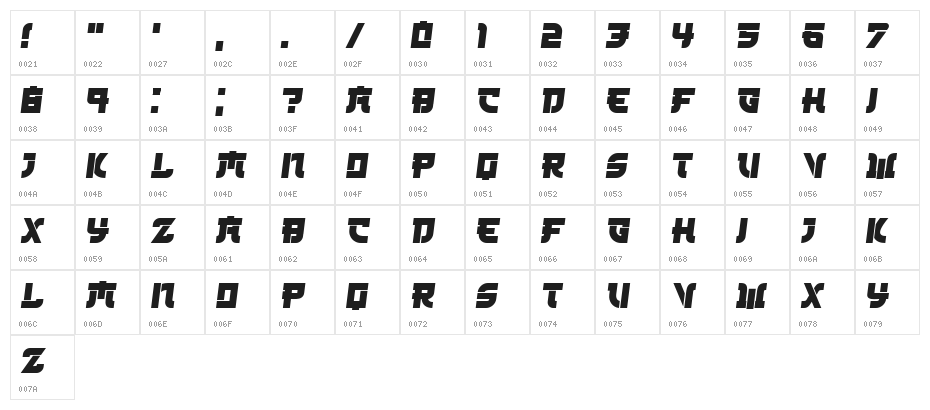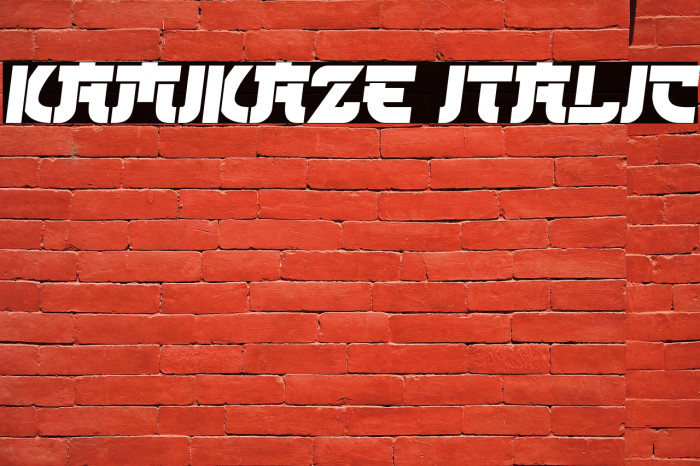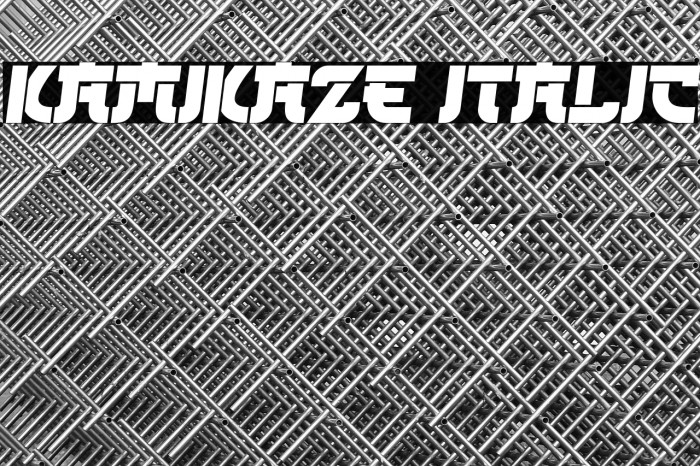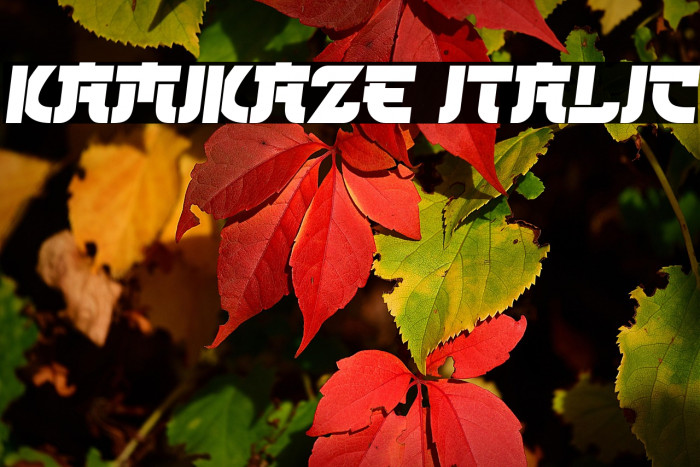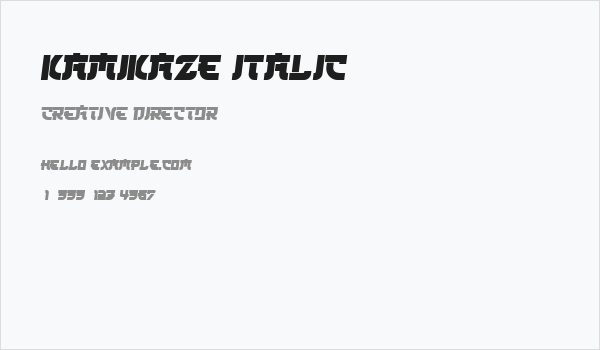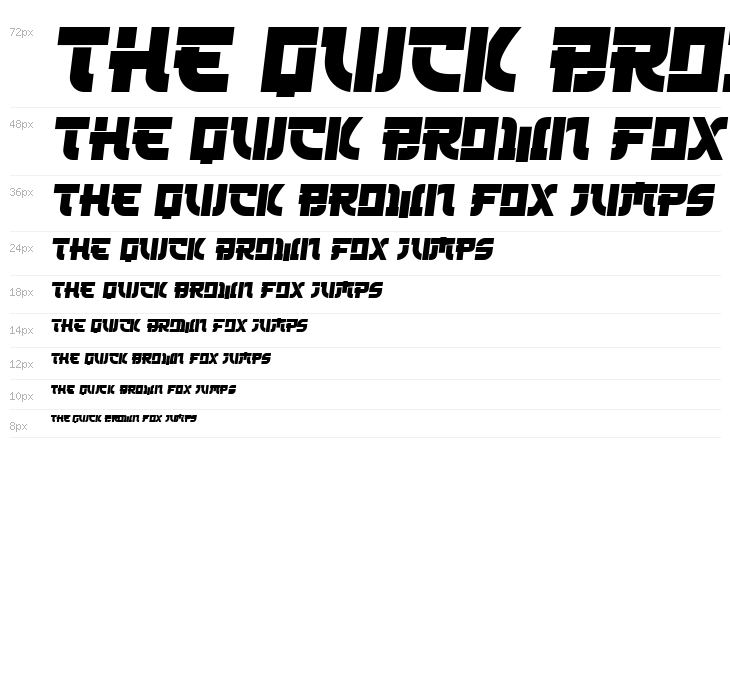
Kamikaze Italic Font
Kamikaze Italic Description
This bold, italicized font features a futuristic and dynamic design with sharp angles and a strong presence. The characters are heavily stylized, with a blocky, geometric structure that gives them a unique and modern appearance. The uppercase and lowercase letters maintain a consistent style, with the lowercase being slightly smaller but equally impactful. Numbers and special characters follow the same design principles, ensuring uniformity across all glyphs. The font's bold weight and italic slant contribute to its assertive and energetic look, making it ideal for attention-grabbing applications.
Proposed ProjectsIdeal for sci-fi themed projects, video game titles, posters, and branding that requires a modern and bold statement.